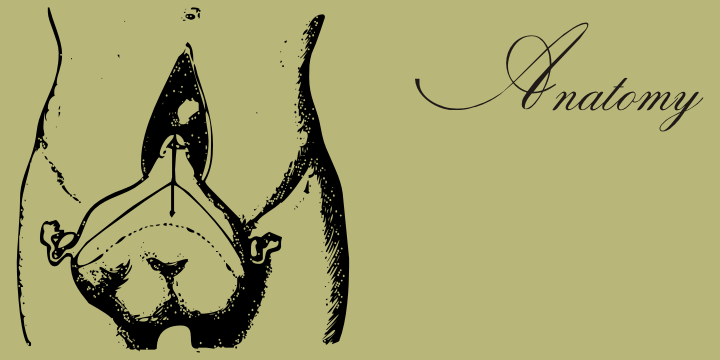
These dingies come from a study in two important and rare medicine books.
The first is the highly valuable Traité Élementaire de Chirurgie et de Médecine Opératoires by V Chalot, famous Surgery Clinical Teacher at the Medicine University of Toulouse, Pathology and Surgery Medicine in the Montpellier University and plus member of the Surgery Society of Paris. I work at the original 4th edition (1900) which has 1323 pages, published from the historic “editeur” Octave Doin and pressed by Charles Hérissey. This edition has 1217 fantastic and high accurate illustrations, showing medical instruments, anatomy and step-by-step techniques of surgery, in an authentic tour-de-force printing job. Book binding hardcover. More…
The second book was the Traité D'Anatomie Humaine by Louis Testut, famous Anathomy Teacher at the Medicine University of Lyon. His “Tome Premier” has 973 pages, published too from the historic “editeur” Octave Doin and pressed by Charles Hérissey in 1899. This edition has 774 fantastic illustrations by G Devy, with 468 colored in an authentic tour-de-force printing job.